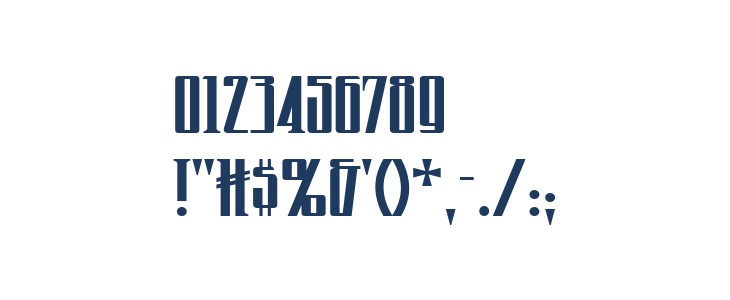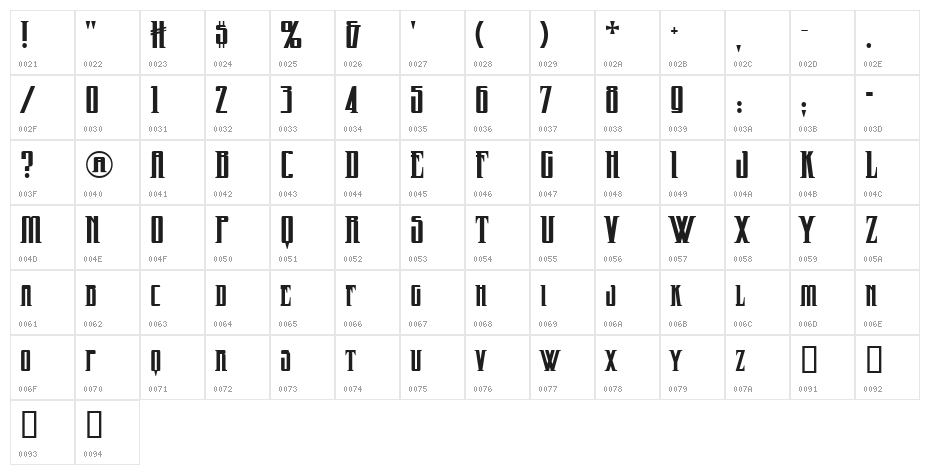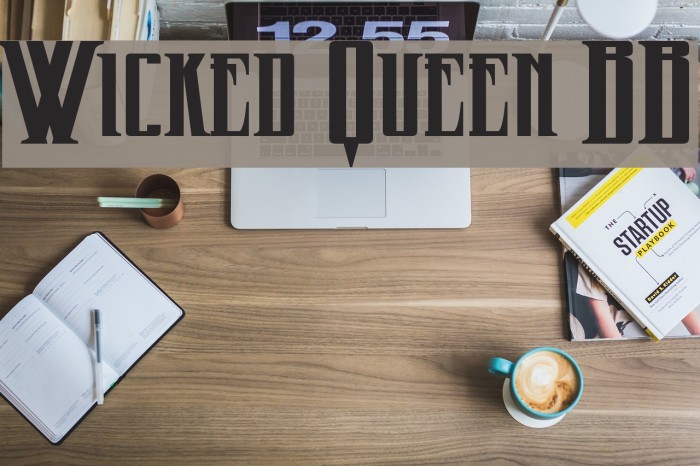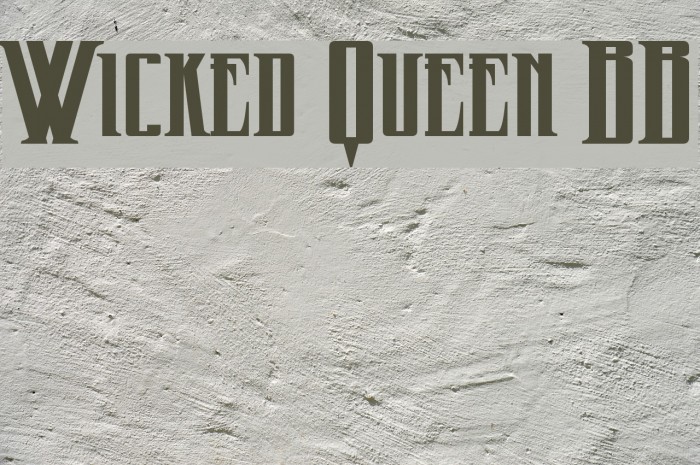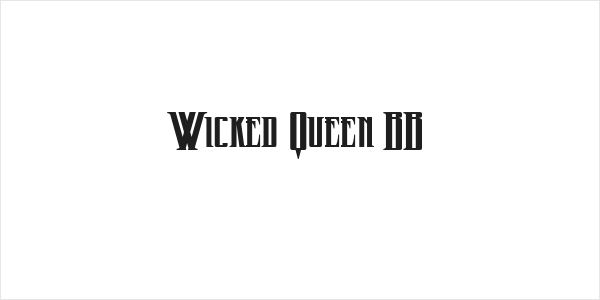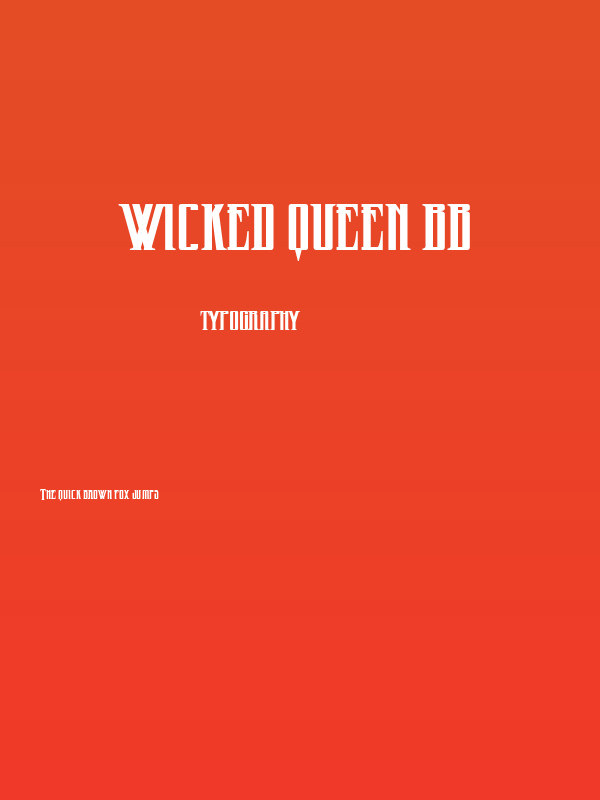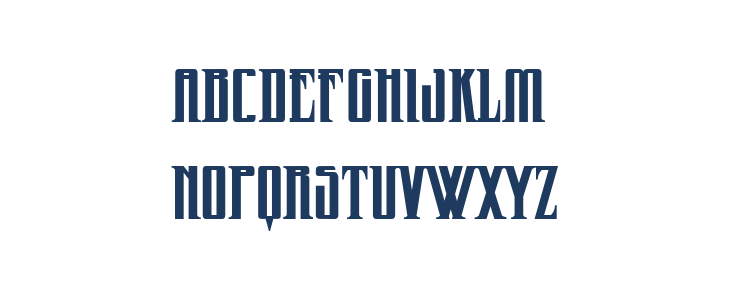
Wicked Queen BB Font
Wicked Queen BB Description
This font features a bold and dramatic style with sharp, angular lines and a gothic influence. The uppercase letters are tall and narrow, with exaggerated serifs that give them a menacing appearance. The lowercase letters maintain the same sharpness and angularity, creating a cohesive look across the alphabet. Numbers and special characters are designed with the same boldness, ensuring consistency throughout. The font's unique style makes it stand out, ideal for projects that require a touch of drama and intensity.
| Overall Style | Gothic, Dramatic |
| Proposed Projects | Ideal for horror-themed posters, video game titles, or any project needing a dramatic and intense aesthetic. |